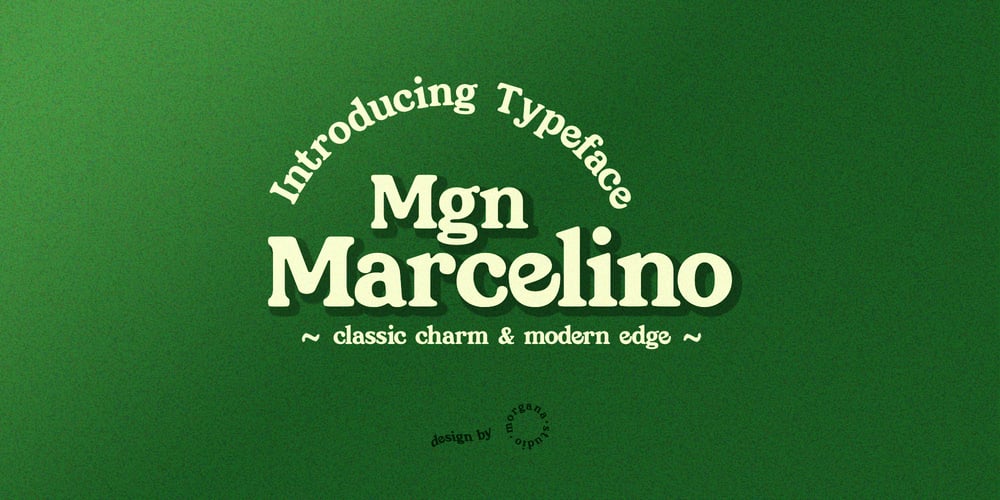
MGN Marcelino Font Family was designed by Muhamad Masyhuri, Fattah Setiawan and published by Morgana Studio. MGN Marcelino contains 1 styles and family package options. MGN Marcelino, crafted by Morgana Studio in 2024, is a captivating serif font that exudes timeless elegance. The distinctive serifs, characterized by their generous and slightly rounded contours, lend a unique charm to the typeface. This vintage-inspired font carries a sense of sophistication and nostalgia, making it a perfect choice for projects that seek to evoke a classic and refined aesthetic. MGN Marcelino seamlessly combines modern design sensibilities with a touch of the past, creating a versatile and visually appealing typeface that stands out with its bold and gracefully rounded serifs.